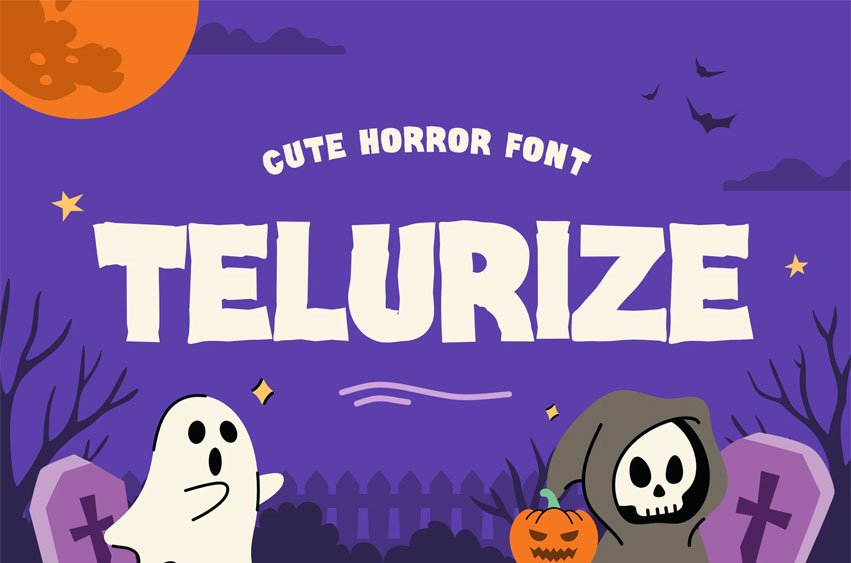
Telurize Font is a cute horror display typeface designed for creators who want a long-tail solution for Halloween branding with playful impact, blending chunky proportions, soft blocky edges, and a lively, slightly bouncy baseline. Its expressive structure brings a fun mix of spooky and adorable—perfect for social campaigns, themed posters, or seasonal product packaging.
The font delivers a bold, energetic vibe while maintaining readability, making it ideal for designers targeting Halloween events, kids’ party visuals, or quirky editorial layouts. Each letterform features rounded contours and thick silhouettes that enhance visibility in both digital and print contexts.
Whether you’re designing a Halloween party poster, crafting Instagram promo graphics, building kids’ spooky story visuals, or setting up a game UI for seasonal events, TELURIZE instantly sets the tone. Its cheerful horror style helps you attract attention, drive engagement, and create fun-yet-spooky atmospheres that feel lively rather than frightening. Buyers seeking expressive lettering will appreciate how effortlessly it strengthens branding and thematic storytelling.
Key Features : Bold, Friendly Horror Personality
- Chunky display structure that commands attention
- Rounded shapes offering a cute, approachable spooky tone
- Designed for Halloween-themed graphics, posters, packaging, and event promotions
Versatile for Digital & Print Projects
- Delivers visual impact on social banners, thumbnails, and cover images
- High legibility at various sizes due to thick curves and balanced proportions
- Suitable for children’s Halloween books, classroom materials, and themed merchandise
Enhances Brand Storytelling
- Adds personality to campaign headlines
- Builds emotional resonance with playful fear aesthetics
- Helps creators develop cohesive seasonal narratives